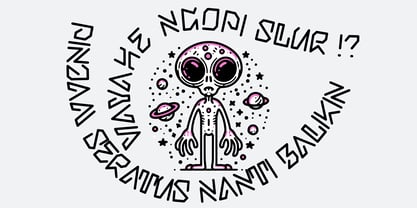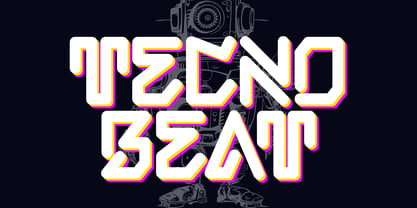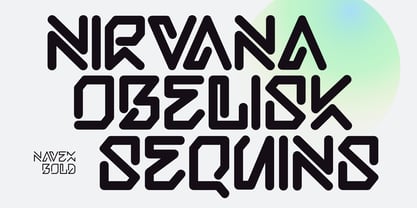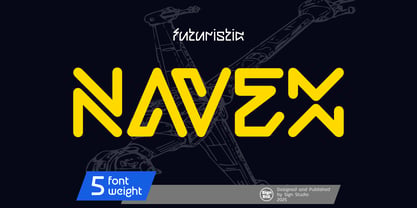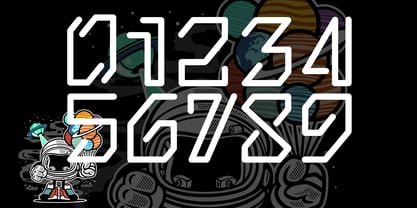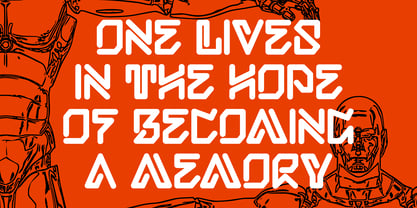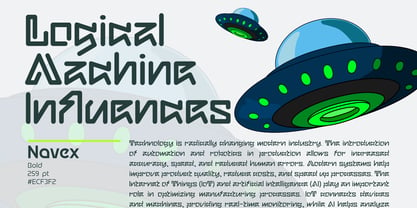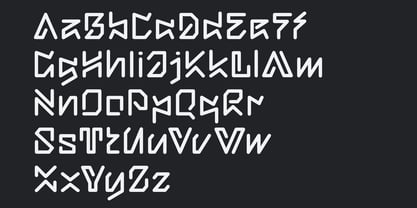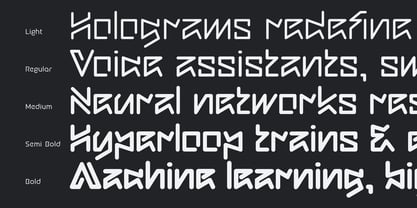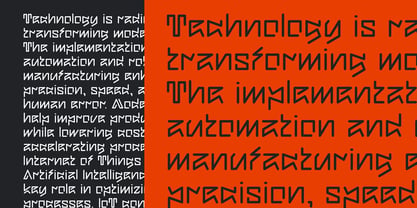
Navex
The Navex Font Family was designed by Sugi Yanto and published by Sign Studio. Navex contains 5 styles and family package options. More about this family
Navex — Futuristic Monoline Typeface
Navex is a futuristic monoline typeface crafted with angular precision and geometric clarity. Inspired by cybernetic interfaces, sci-fi glyphs, and modular design systems, Navex delivers a unique visual identity that's both unconventional and readable.
With 5 distinct weights, from Light to Bold, Navex adapts seamlessly across branding, UI display, posters, apparel, and experimental media. Its consistent stroke width reinforces a sleek, tech-forward character, while the stylized letterforms evoke alien scripts, digital encryption, or dystopian futurism.
Key Features:
Monoline construction for clean visual rhythm
5 weights for flexible hierarchy
Uppercase with matching lowercase
Ideal for sci-fi themes, gaming UI, techno branding, or future-forward editorial
Navex is more than a font — it’s a visual code for the next generation of design.